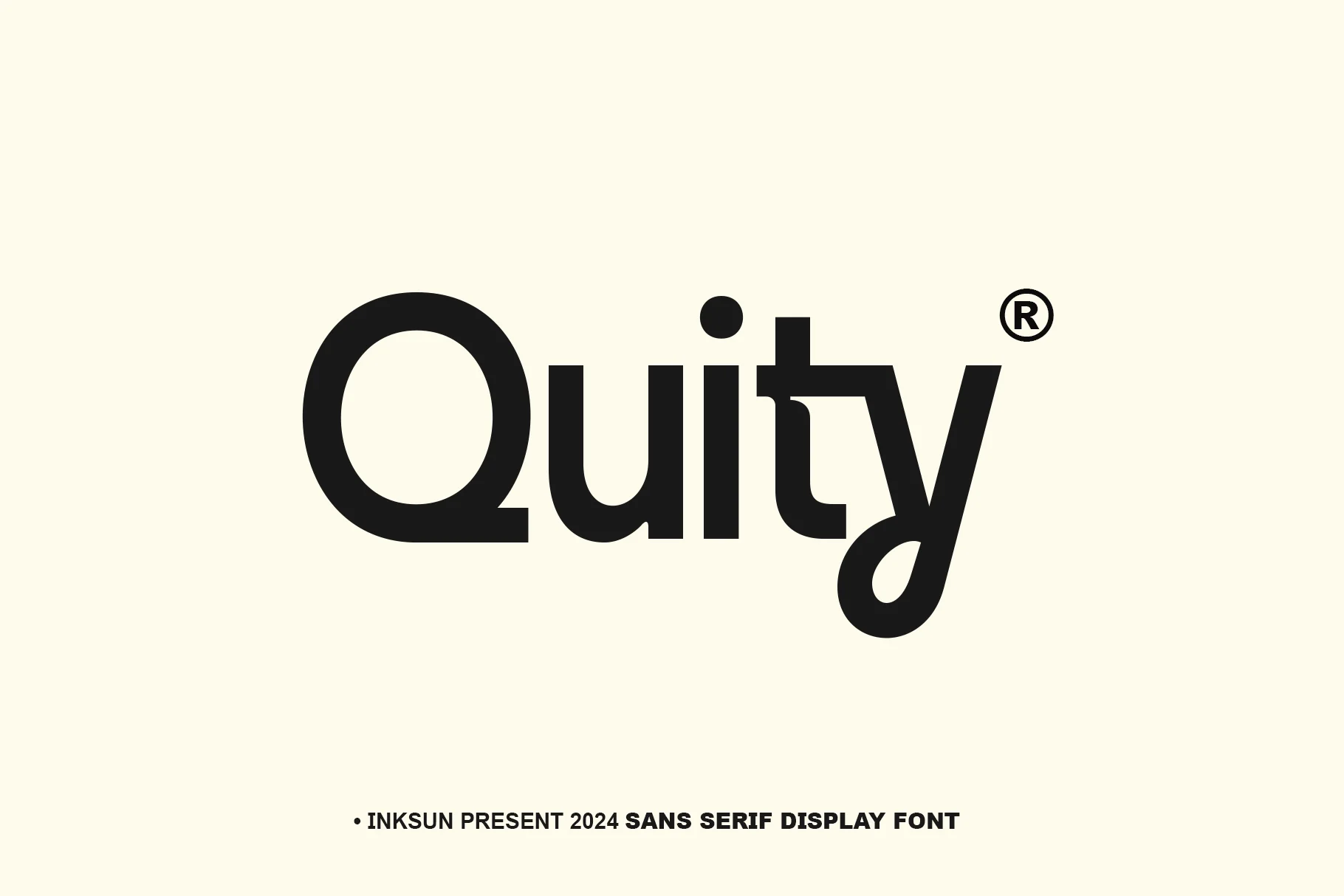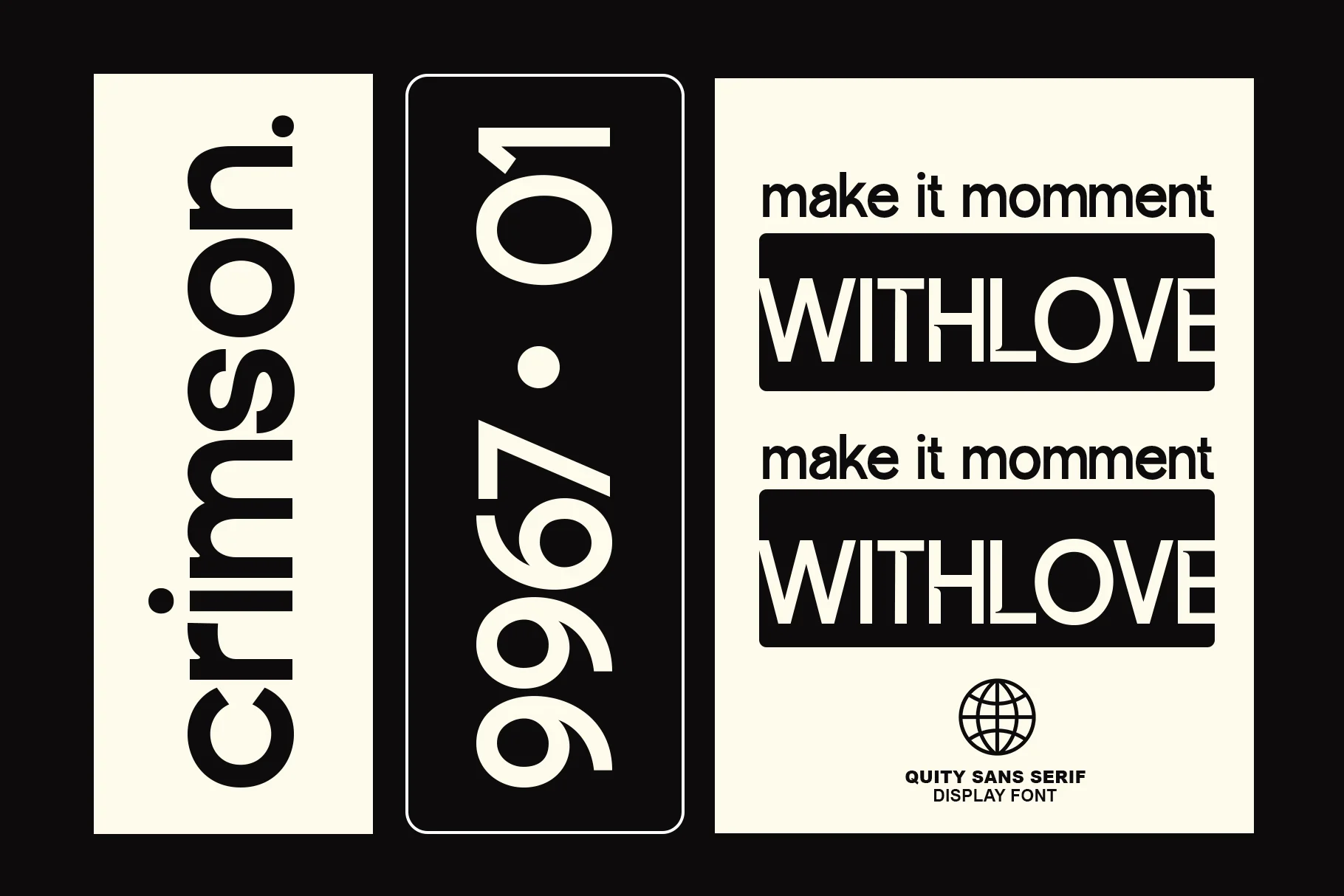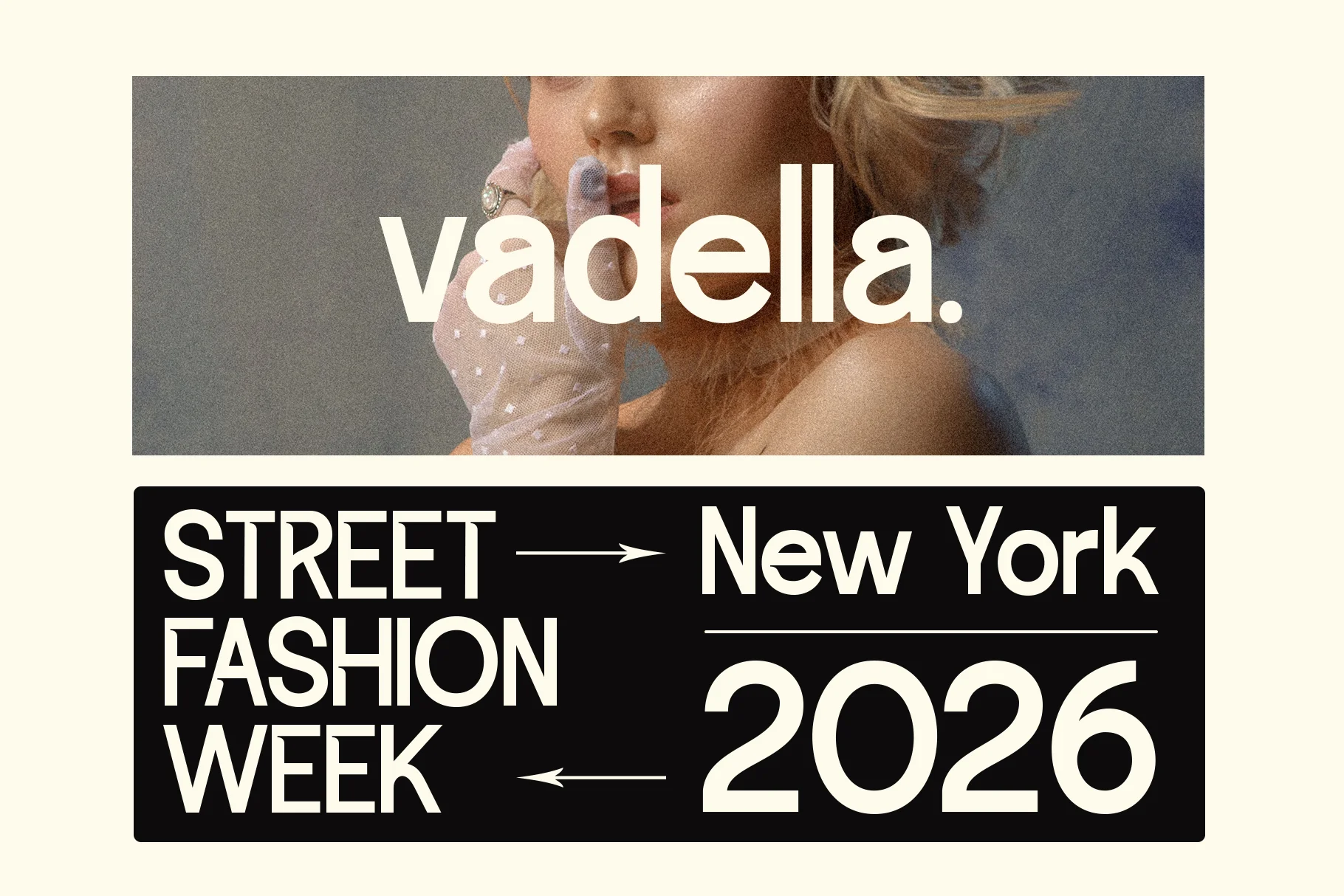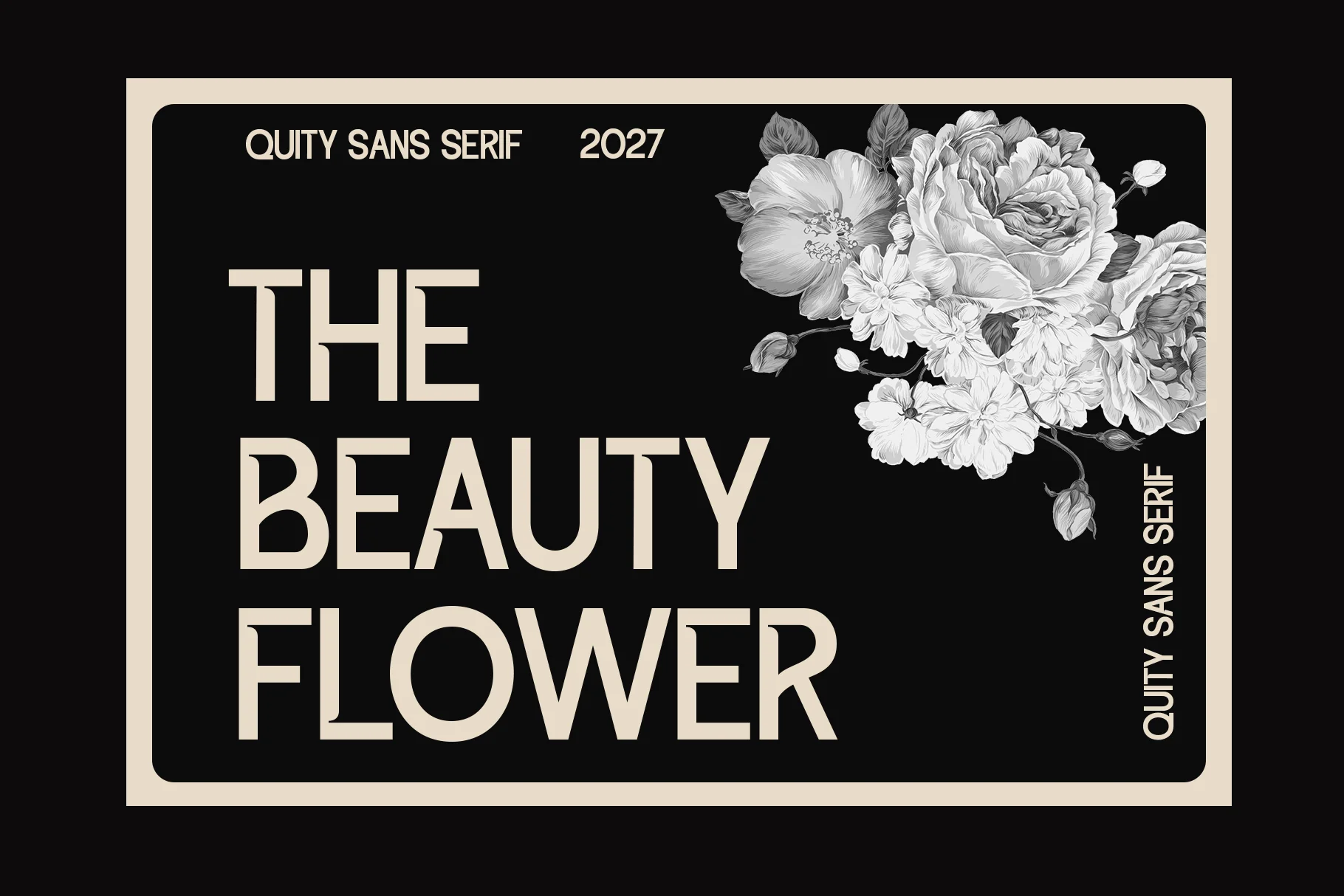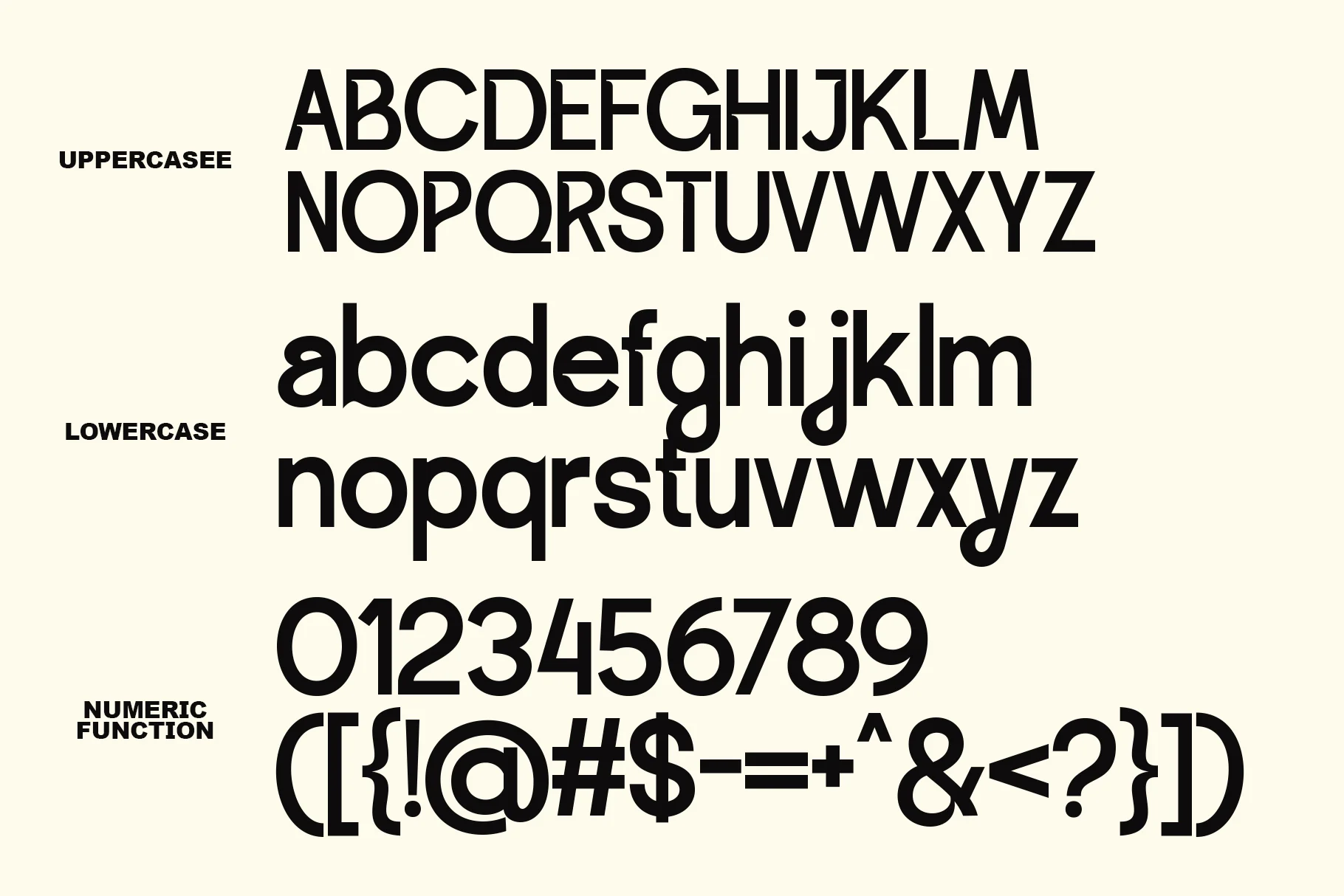
Quity
Quity is a sans serif display font with a modern, clean, and bold character. Its bold letterforms with clean geometric proportions give it a contemporary and professional feel, yet still feel friendly and playful.
The most striking features are the letter details—such as the uniquely curved "y" tail and the subtle letter cuts—which make Quity distinctive and memorable. The spacing and balance between letters are well-designed, so this font remains clearly legible even at large sizes.